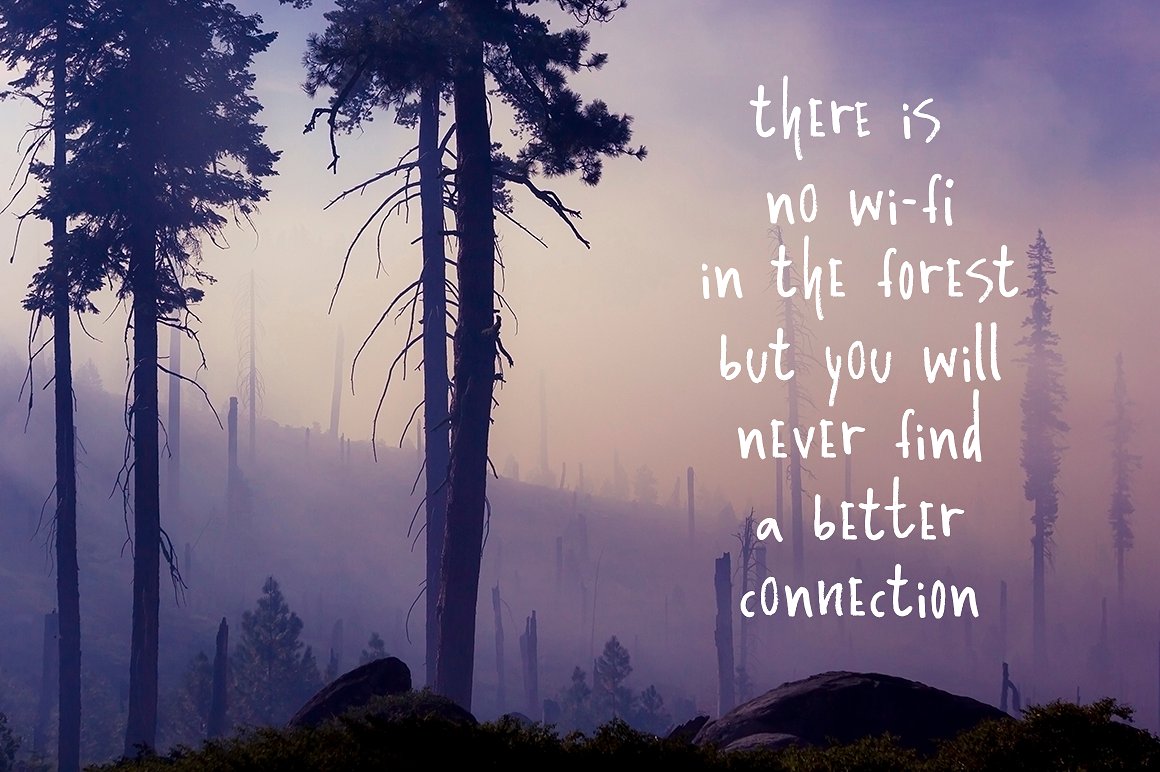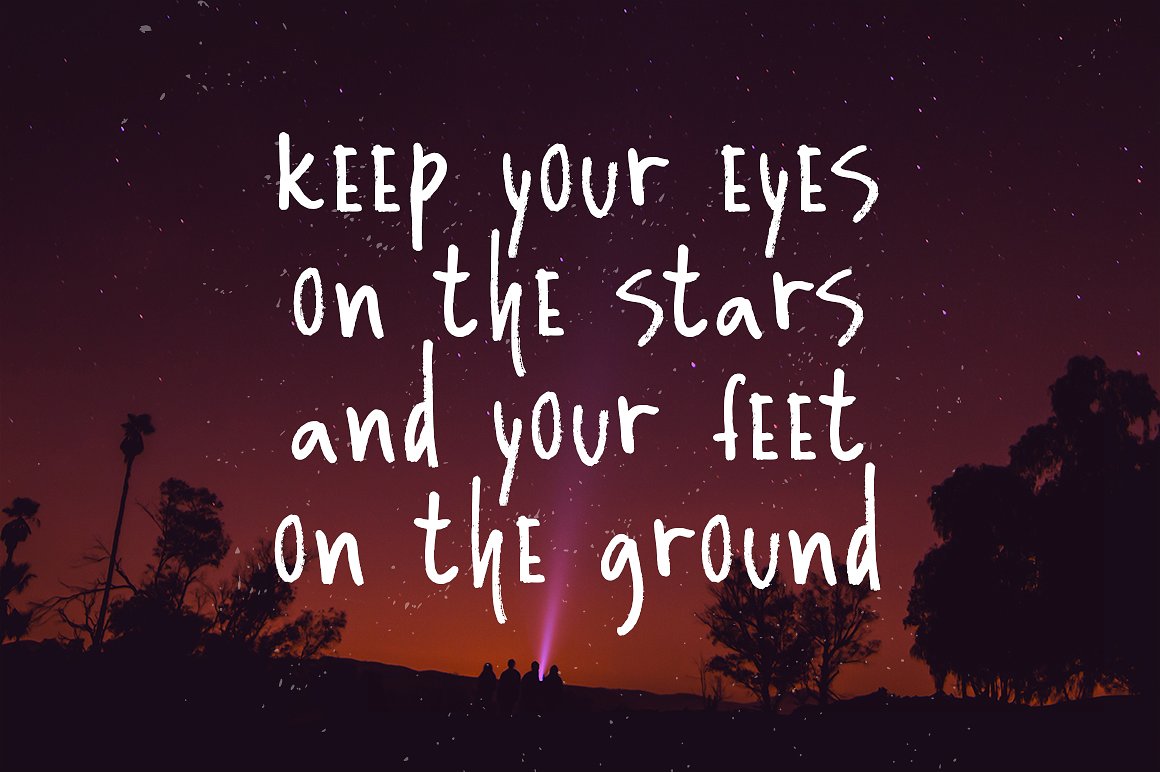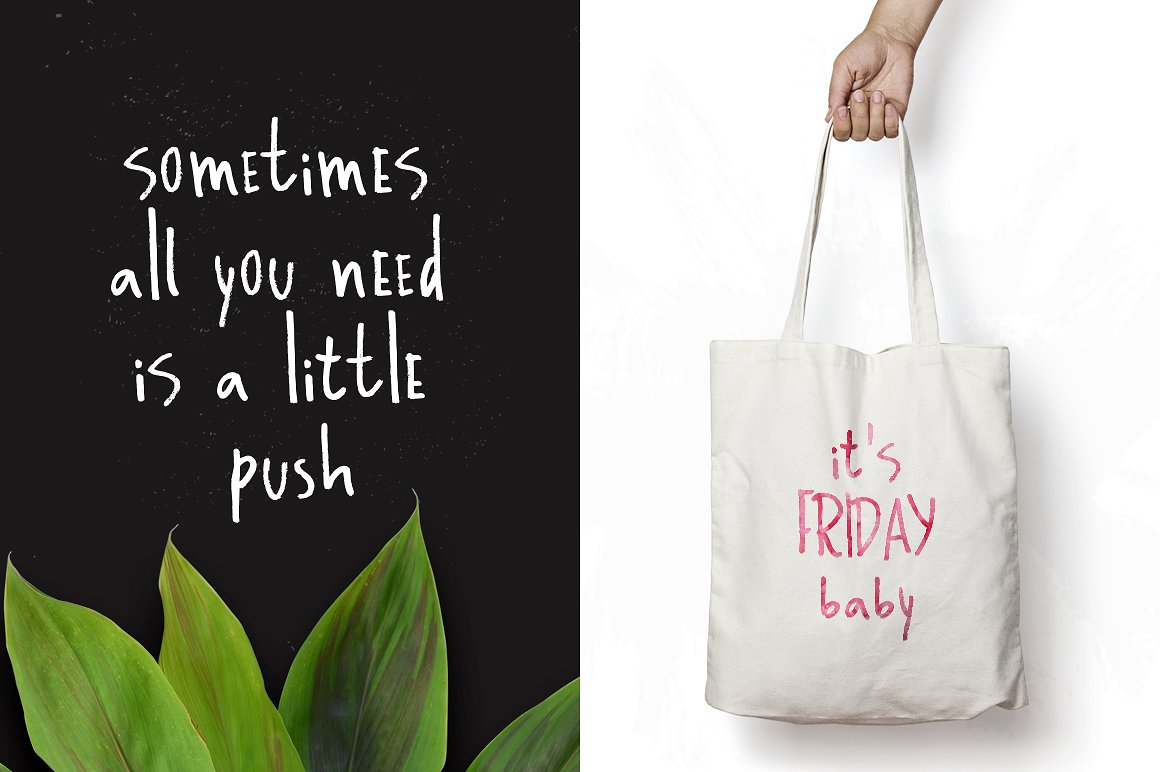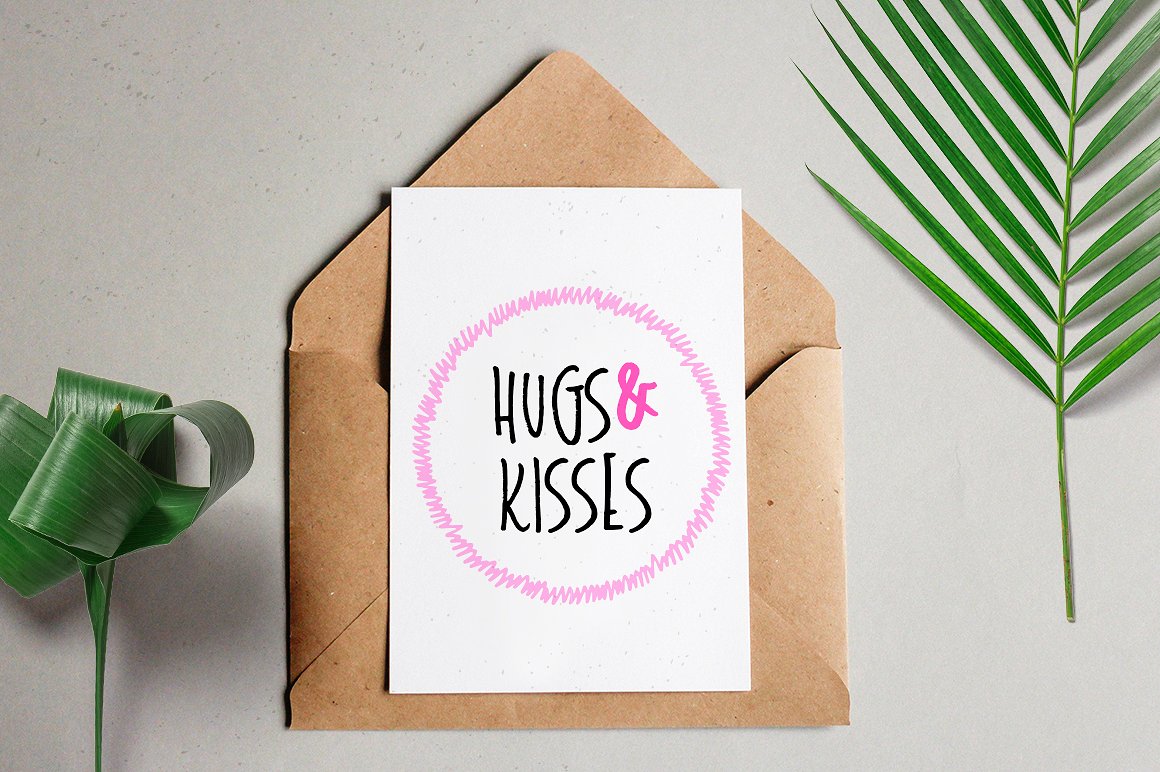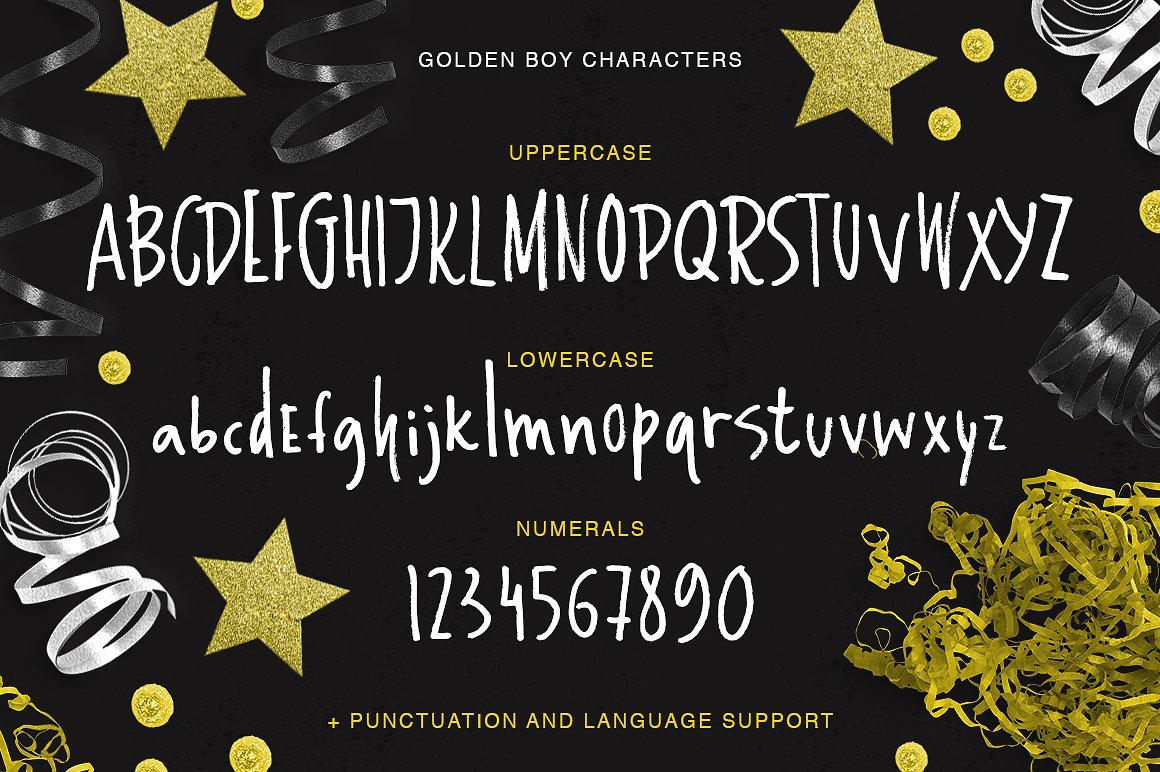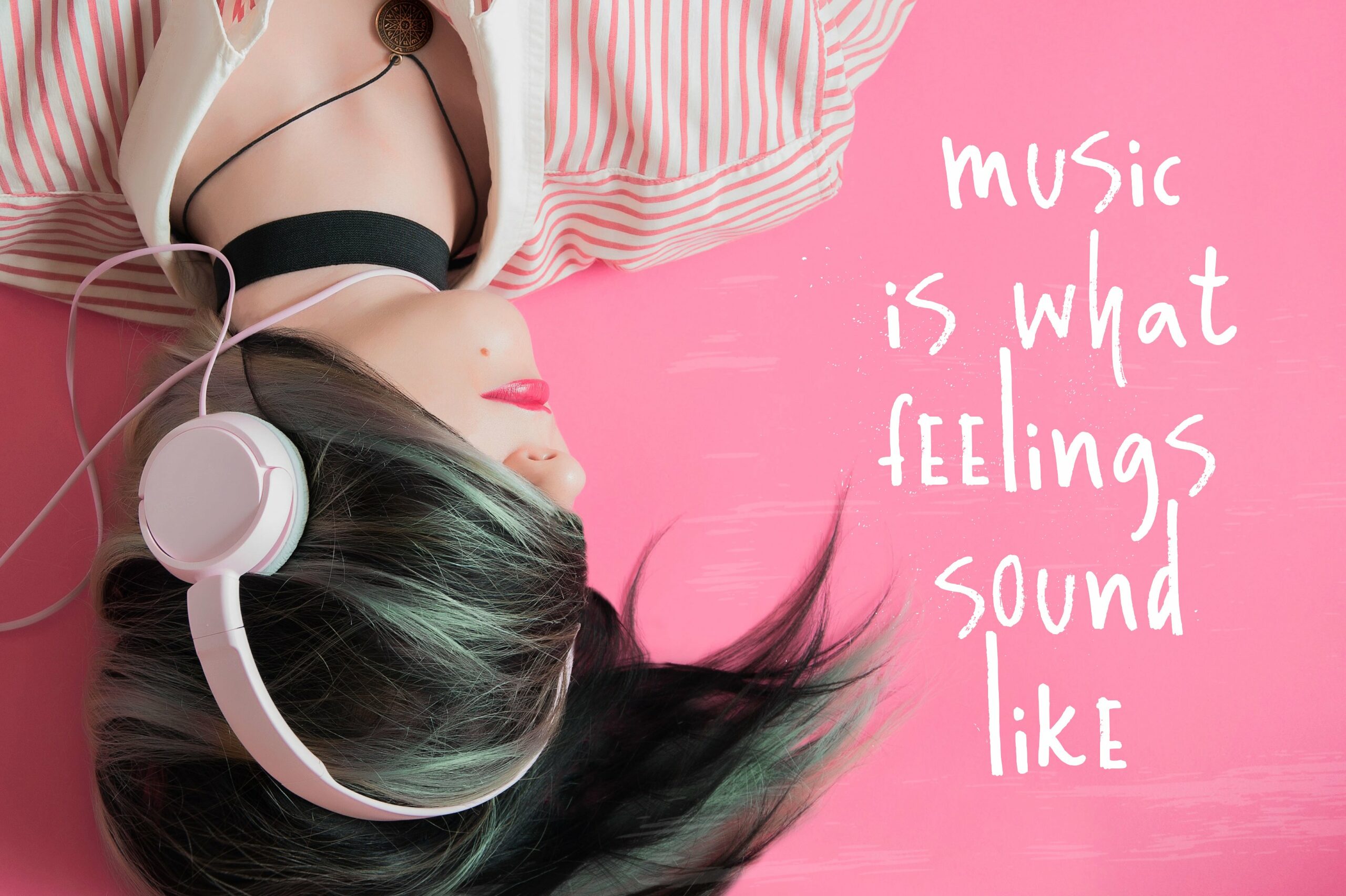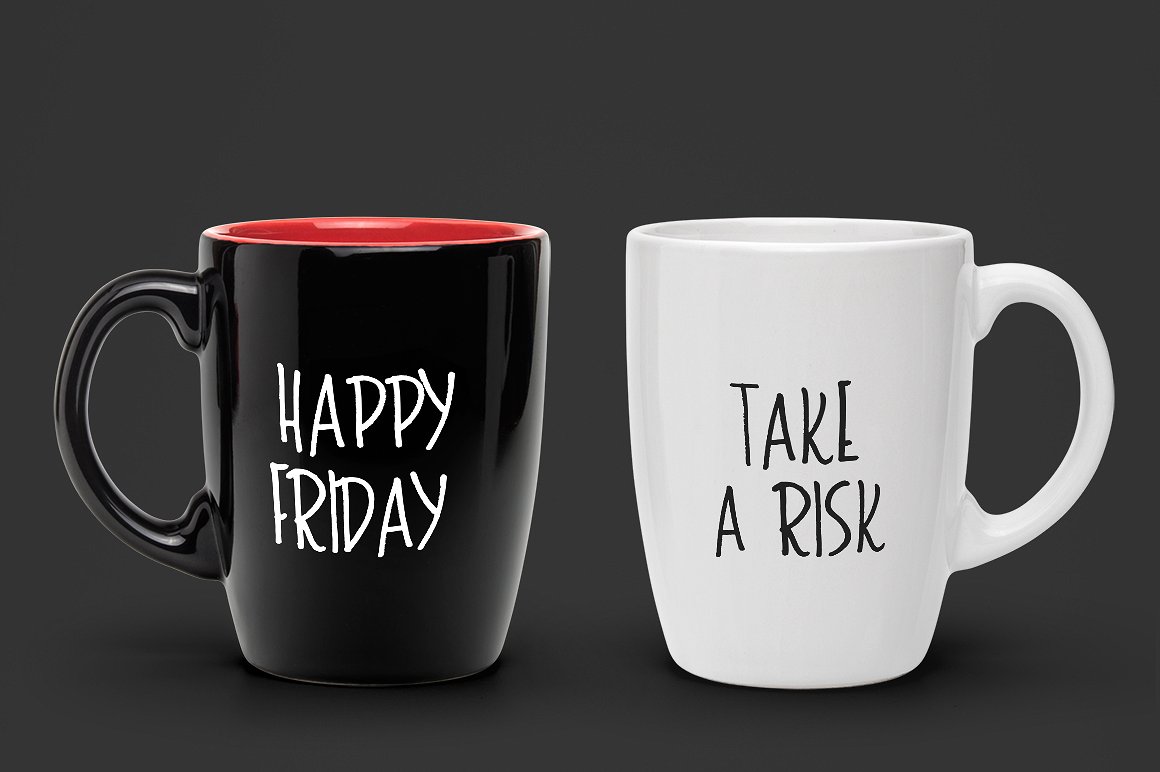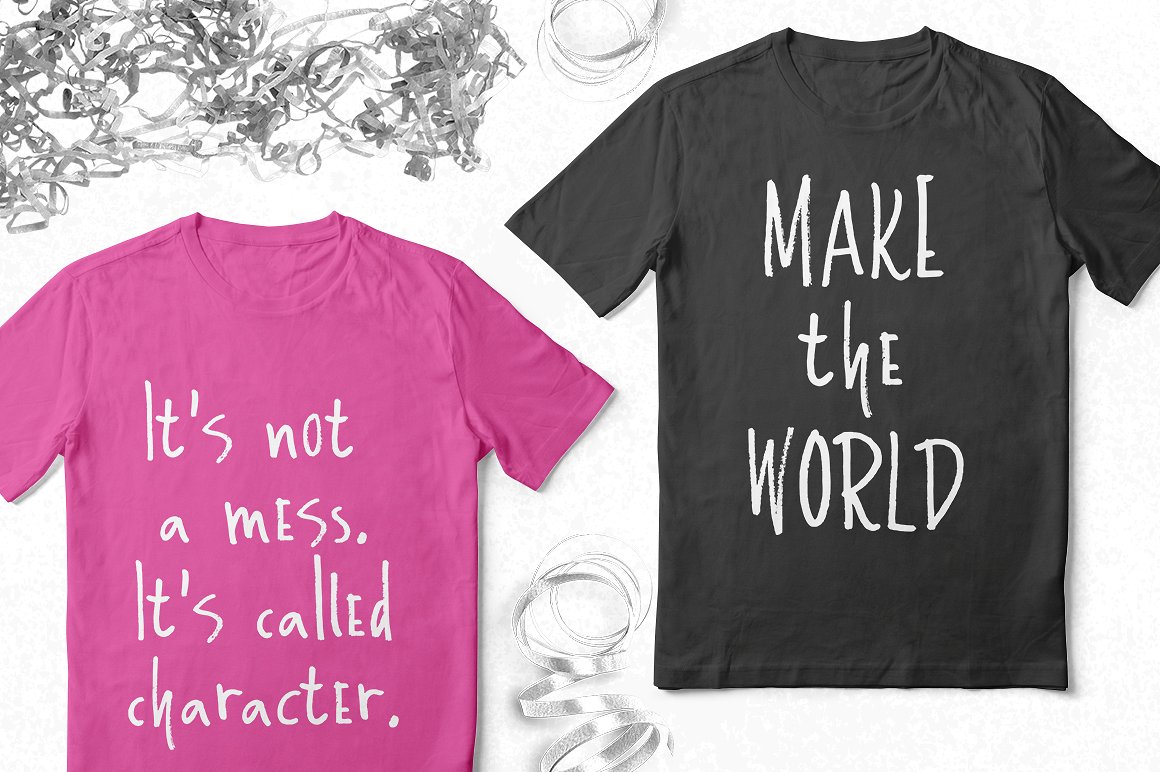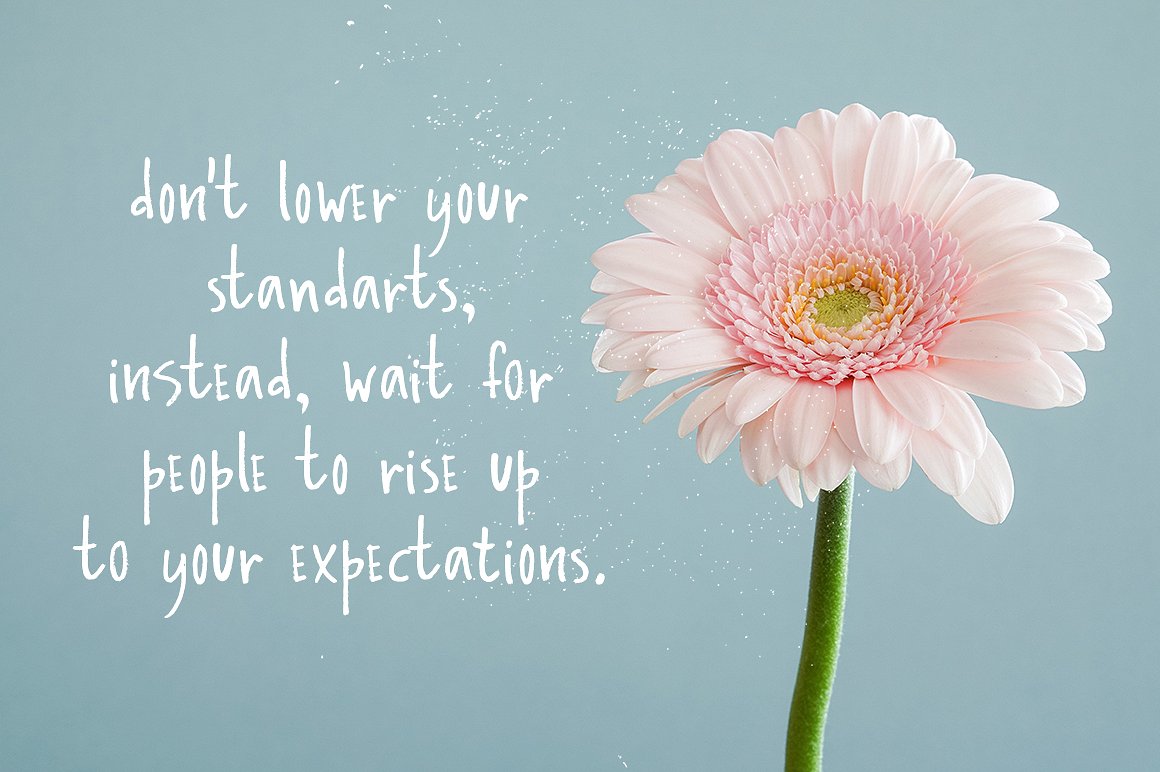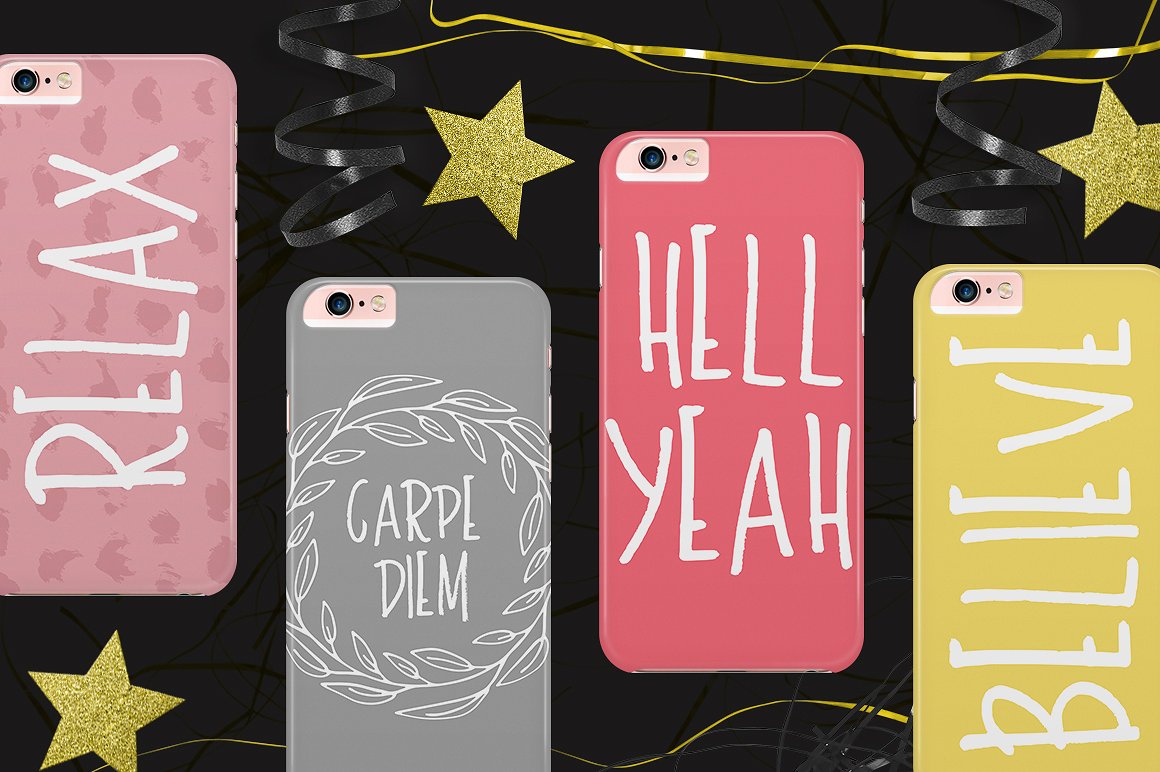
Golden Boy Font
Golden Boy is a freehand marker featuring an organic texture.
This stunning font comes with extensive language support and will add some glamour to your designs!